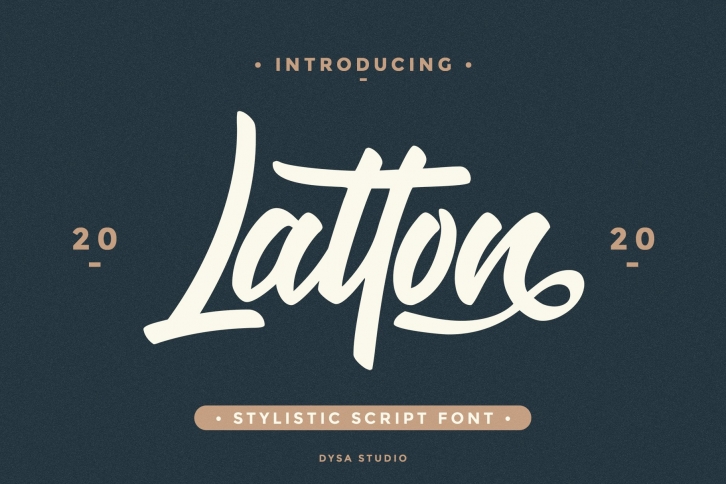
Latton is a modern stylistic script font. This another collection of script is perfect for your branding project, excellent for "Logotype". Latton have a smooth edges, so this font gives an authentic handcrafted feel style.
Latton is perfect choice for people looking for clean, modern, minimalist, elegant, beauty design styles. Suitable for almost any graphic designs such as logo, branding materials, business cards, gift cards, t-shirt, cover, thumbnail, print, poster, photography, quotes .etc